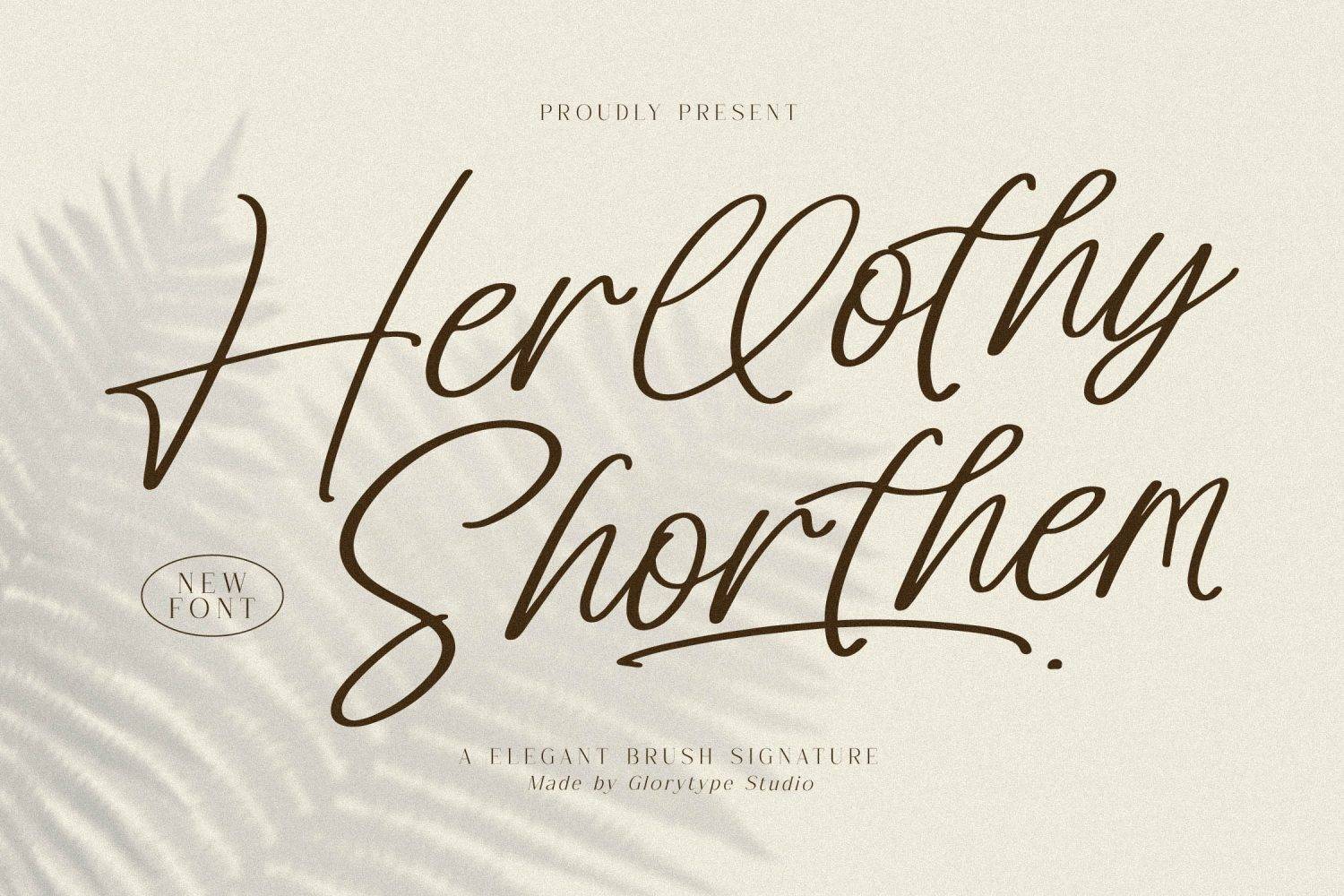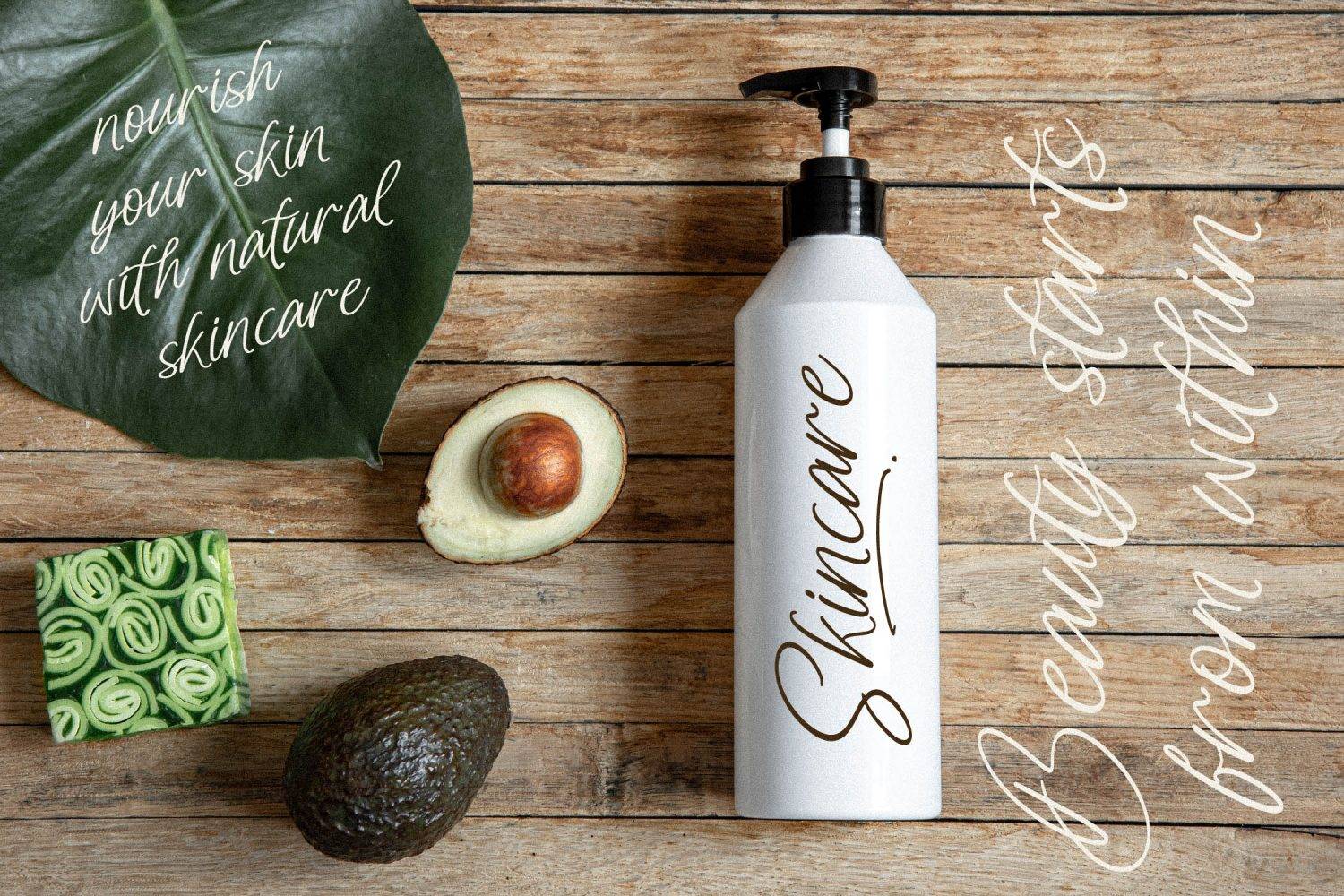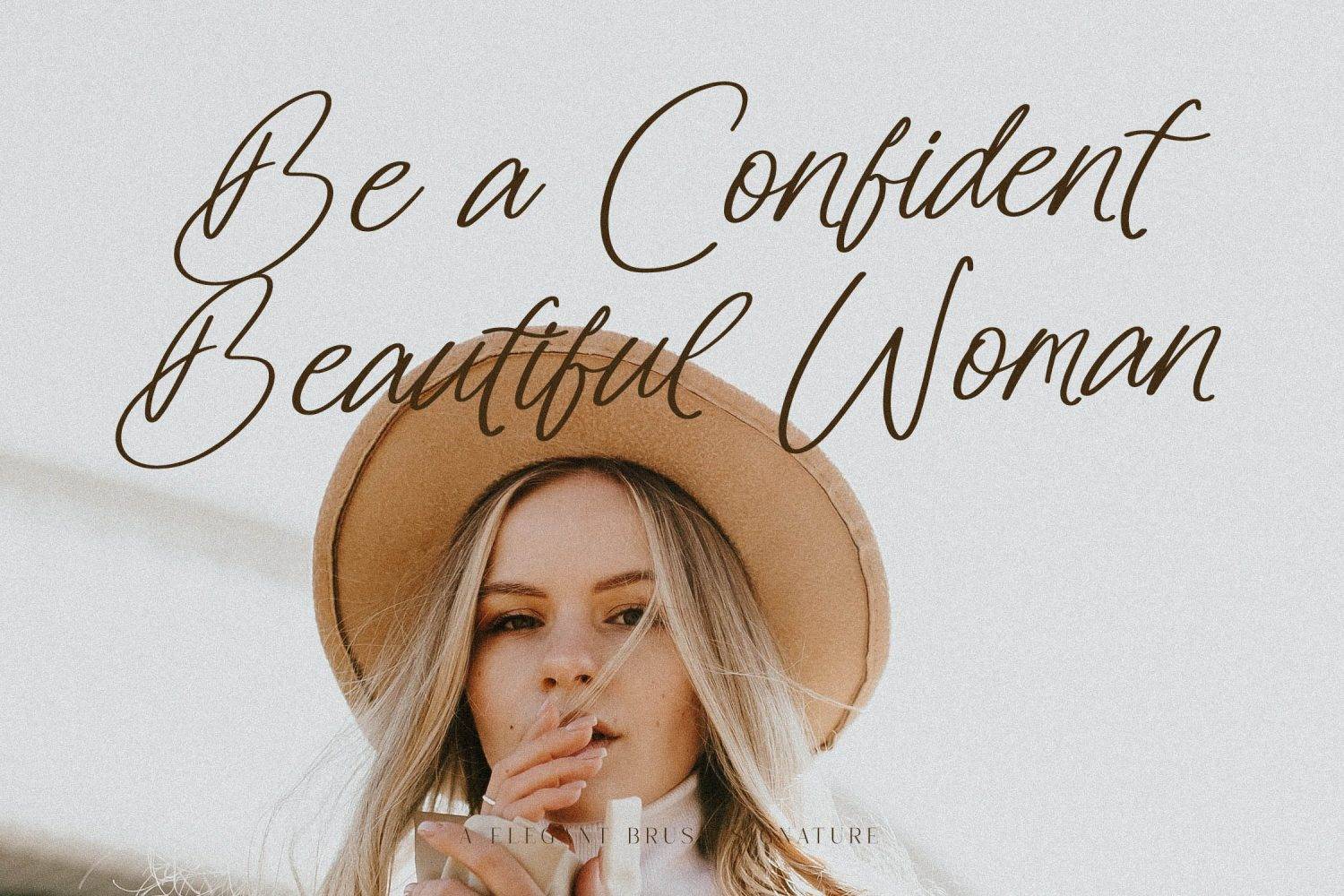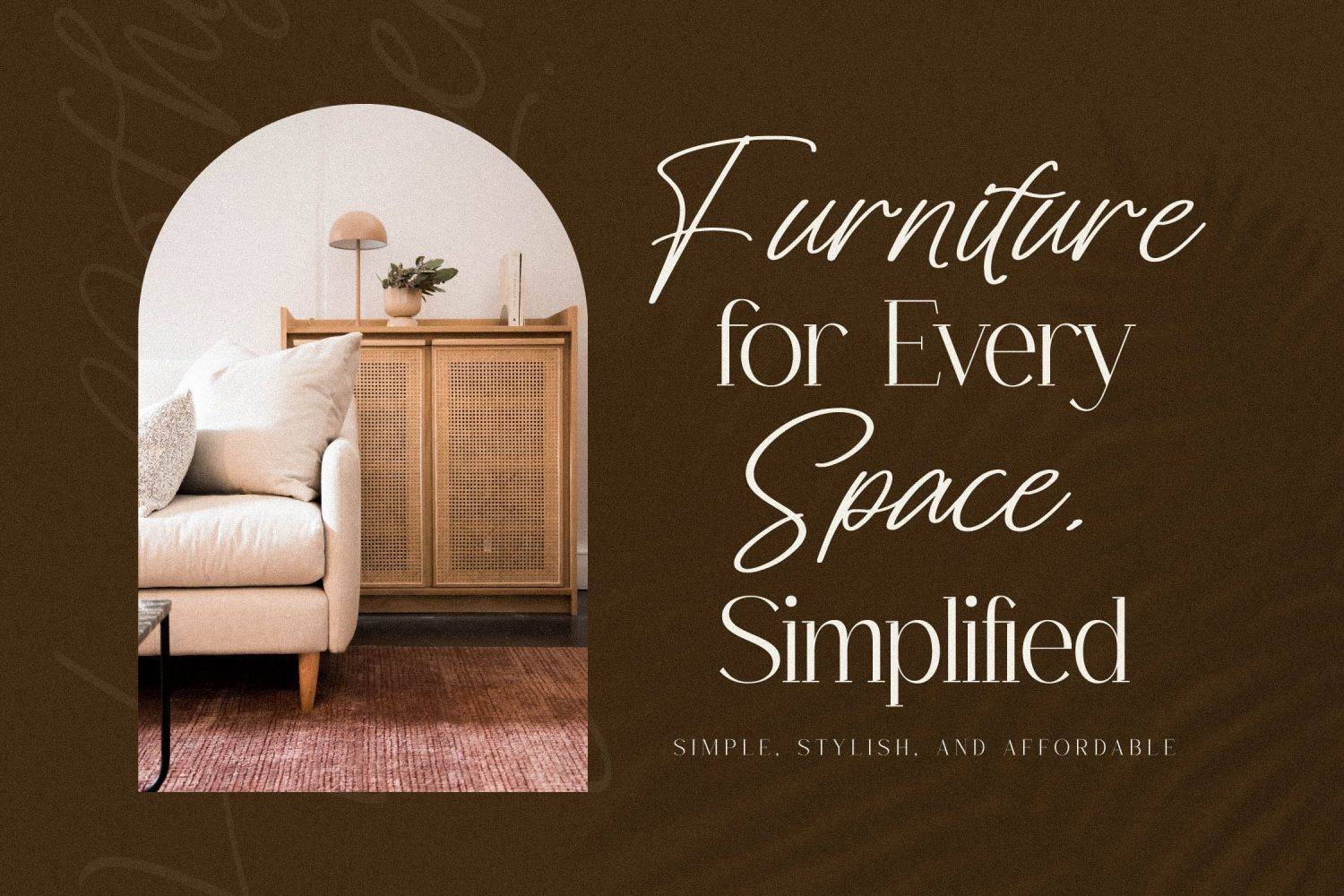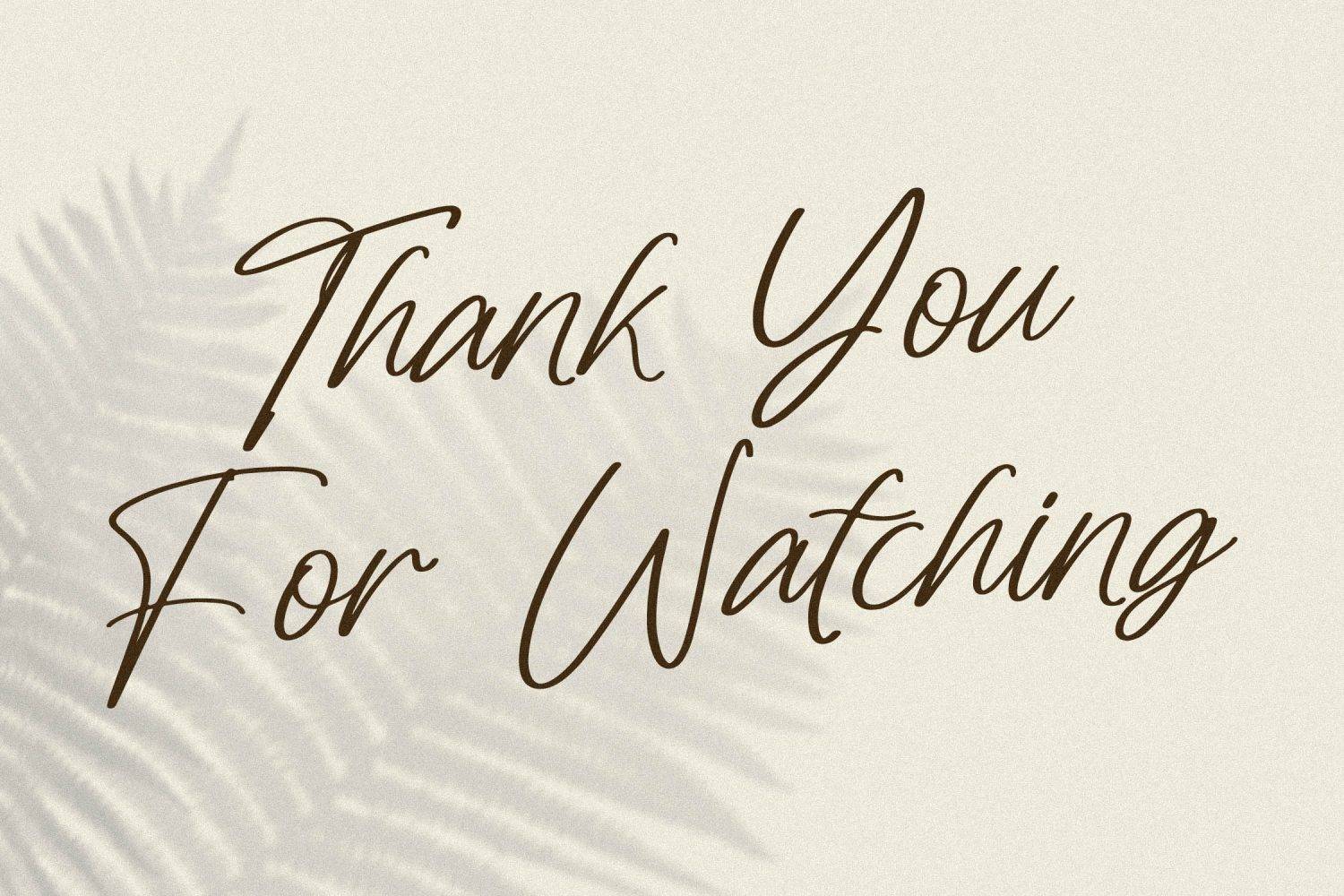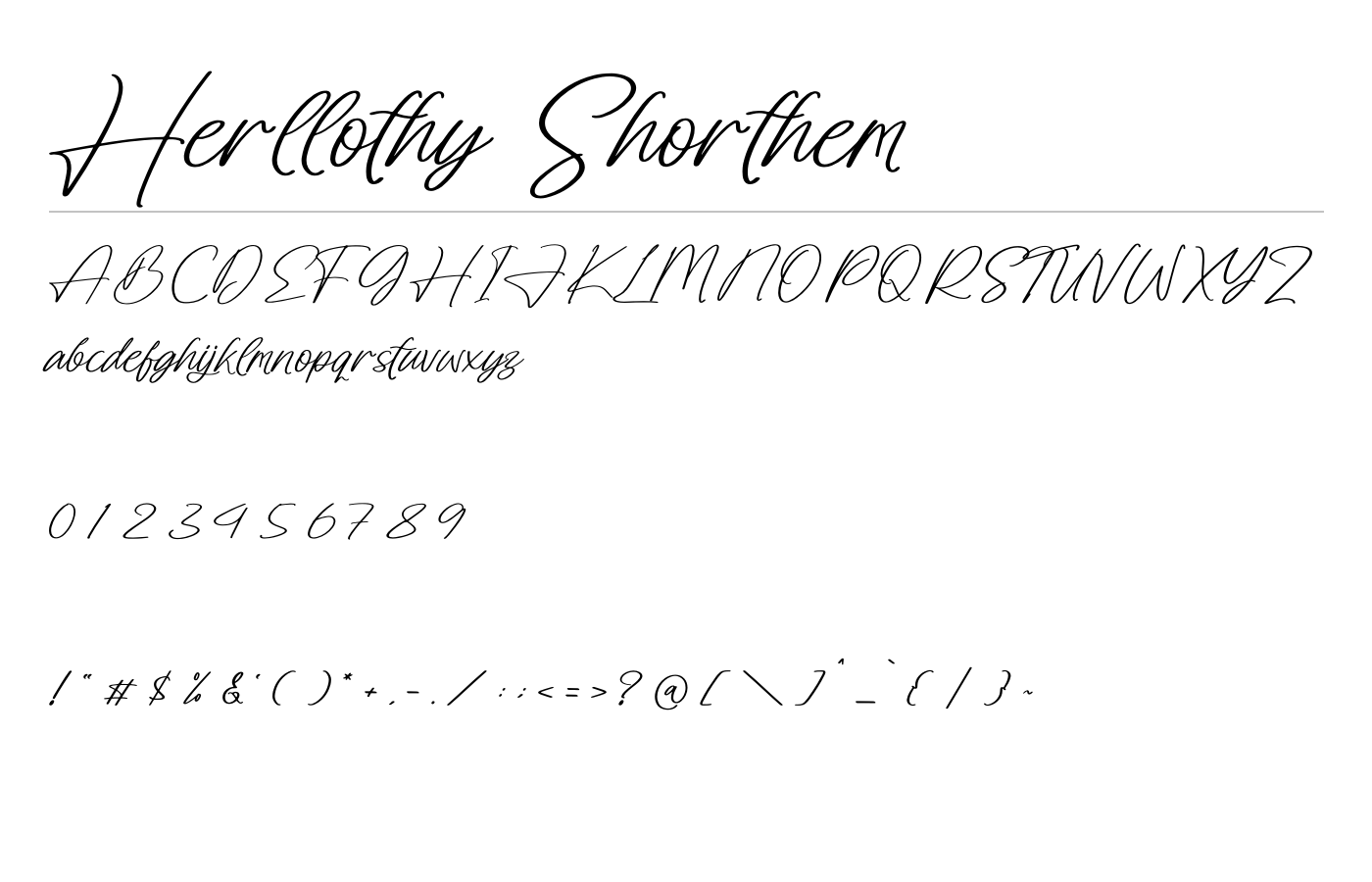
Herllothy Shorthem is a delicate, modern script font characterized by its thin, elegant strokes and fluid, handwritten style. Its light weight and airy letterforms give it a graceful, sophisticated feel, making it perfect for invitations, branding, and any design seeking a personal, refined touch. This font works well in contexts where a stylish yet subtle script adds personality without overpowering the overall design.
Herllothy Shorthem Font
About Herllothy Shorthem Font